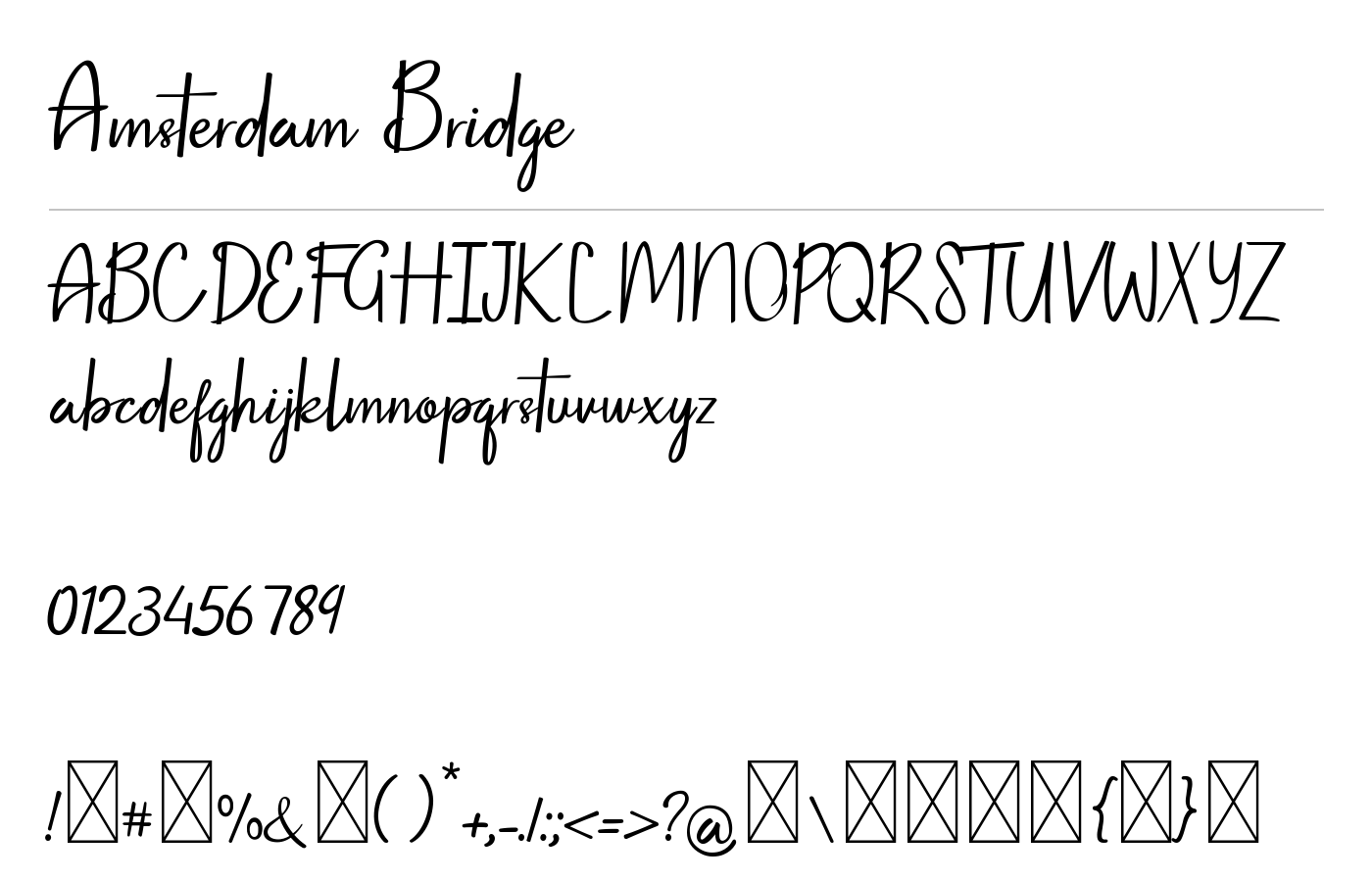
Amsterdam Bridge is a delicate, handwritten script font that combines tall, slender letterforms with playful and elegant strokes. Its light weight and casual style make it perfect for personal branding, invitations, and creative projects that want to convey a friendly yet refined feel. This font works well in headlines and decorative text where a touch of charm and approachability is desired.
Amsterdam Bridge Font